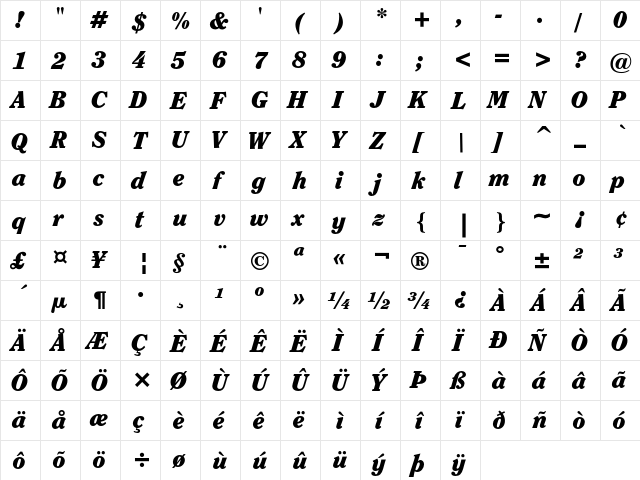
ITC Clearface Black Italic Font Preview
ITC Clearface Black Italic
Design Context for ITC Clearface Typeface
ITC Clearface takes a measured approach to typography — its balanced proportions and neutral character make it a reliable workhorse for both digital and print work. The slanted form adds forward momentum and visual energy.